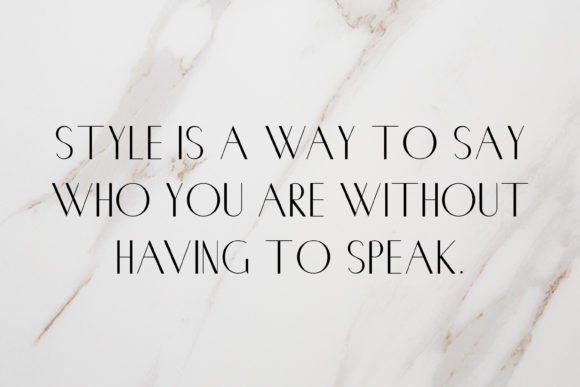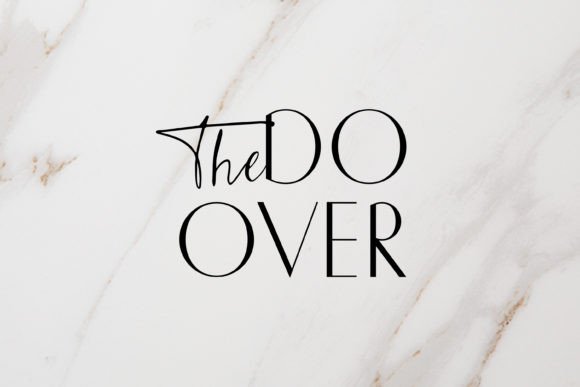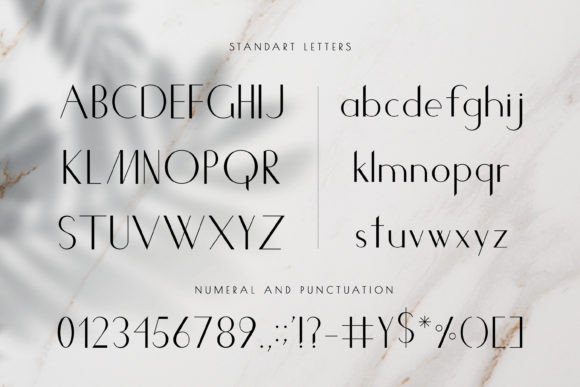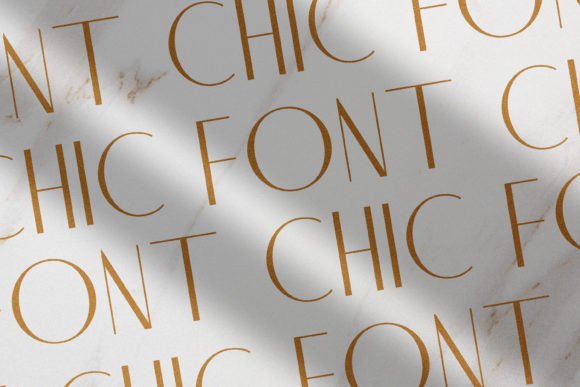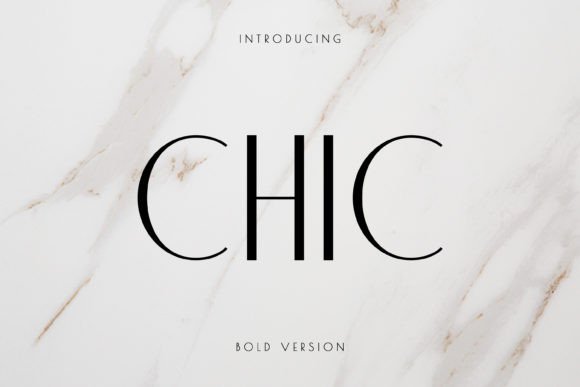
Introducing Chic Font: Elevate Your Designs with Elegance and Sophistication
In the world of typography, the right font can make all the difference in transforming a design from ordinary to extraordinary. For those seeking a typeface that exudes grace, elegance, and a touch of modern sophistication, Chic Font is the perfect choice. This stunning sans serif font is designed to bring a level of refinement and style to any project, making it an indispensable tool for designers and crafters alike.
The Essence of Chic Font
Chic Font is a gracefully elegant sans serif typeface that embodies the perfect blend of simplicity and sophistication. Its clean lines and stylish simplicity make it an ideal choice for designers looking to add a touch of class to their work. Whether you’re creating a logo, heading, or any other design element, Chic Font effortlessly combines elegance with clarity, ensuring your project stands out with a sleek and modern look.
Key Features of Chic Font
- Elegant Sans Serif Design: Chic Font boasts a beautiful sans serif design that is both contemporary and timeless. Its elegant appearance makes it suitable for a wide range of design projects.
- Stylish Simplicity: The font’s simplicity is its most striking feature, allowing it to complement any design without overpowering it. This simplicity also ensures excellent readability, making it perfect for both headings and body text.
- Versatility: Chic Font is incredibly versatile, making it suitable for various applications, from logos and headings to packaging and digital media. Its adaptability means you can use it across different mediums without compromising on style or legibility.
- Timeless Appeal: Unlike trendy fonts that may quickly become outdated, Chic Font has a timeless quality to it. Its classic elegance ensures that your designs remain stylish and relevant for years to come.
Why Choose Chic Font?
For designers and crafters, the decision to use Chic Font can significantly elevate the aesthetic appeal of their projects. Here are a few reasons why Chic Font should be at the top of your font choices:
- Enhances Visual Appeal: With Chic Font, you can instantly enhance the visual appeal of your designs. Its elegant and modern appearance captures attention and makes your work stand out.
- Perfect for Professional Projects: If you’re working on professional projects, Chic Font can help you achieve that polished and refined look that impresses clients and audiences alike.
- Easy to Read: Despite its elegant appearance, Chic Font maintains excellent readability, ensuring that your message is conveyed clearly and effectively.
- Supports Creative Freedom: With its versatile design, Chic Font gives you the creative freedom to experiment with different styles and layouts, allowing you to push the boundaries of your design.
How to Use Chic Font Effectively
To make the most of Chic Font, consider the following tips:
- Pair with Complementary Fonts: While Chic Font is stunning on its own, pairing it with complementary fonts can add depth and interest to your designs. Choose fonts that contrast with Chic Font to create visual hierarchy.
- Experiment with Sizes and Weights: Don’t be afraid to experiment with different sizes and weights of Chic Font. This can help you create a more dynamic and engaging design.
- Consider Color Schemes: The color scheme you choose can significantly impact how Chic Font appears in your design. Select colors that complement the elegance of the font to maintain a cohesive look.
| Font Name | Chic Font |
| Author | elvinova |
Chic Font is more than just a typeface; it’s a design statement. Its graceful and elegant sans serif design, combined with its stylish simplicity, makes it the perfect choice for designers and crafters looking to add a touch of sophistication to their work. Whether you’re aiming for a sleek and modern look or a timeless and refined aesthetic, Chic Font is the ideal choice. Elevate your designs with the elegance and clarity that Chic Font offers, and make a lasting impression with your work.